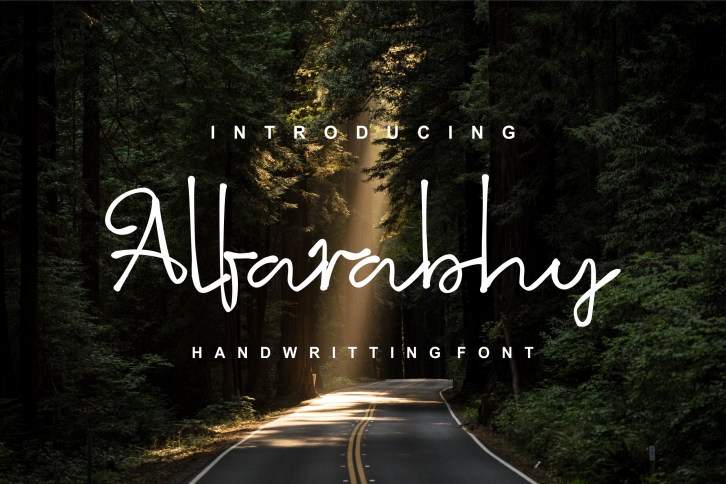
Alfarabhy is a Handwritting font that we designed with original touch for your needs.
This cool font is complete with Uppercase, Lowercase, Numeric & symbols. This very strong and sharp font is perfect
for titles, typography, posters, magazines, brochures, packaging, Websites and much more for your design needs, making your designs more cool.